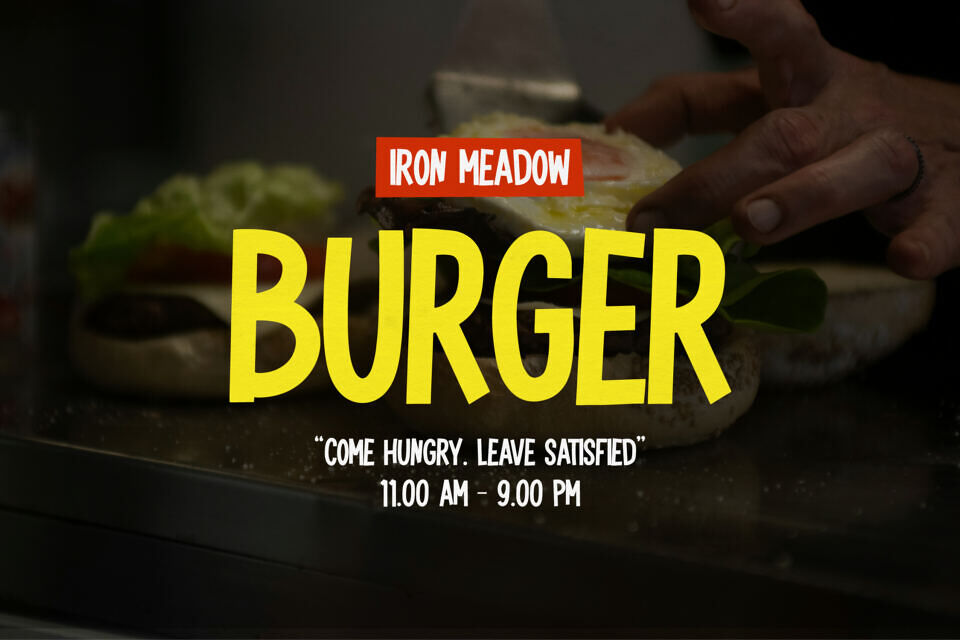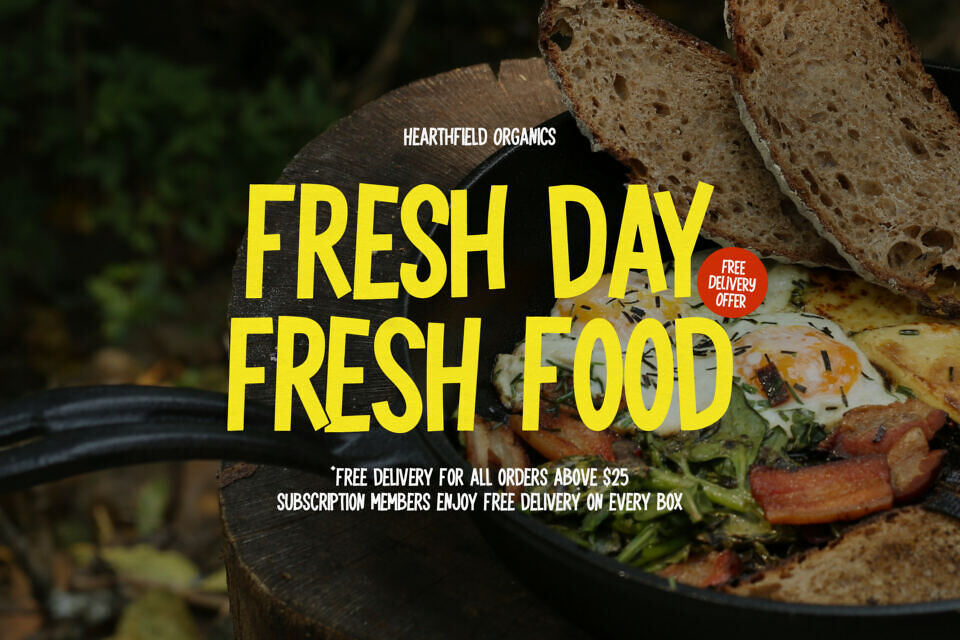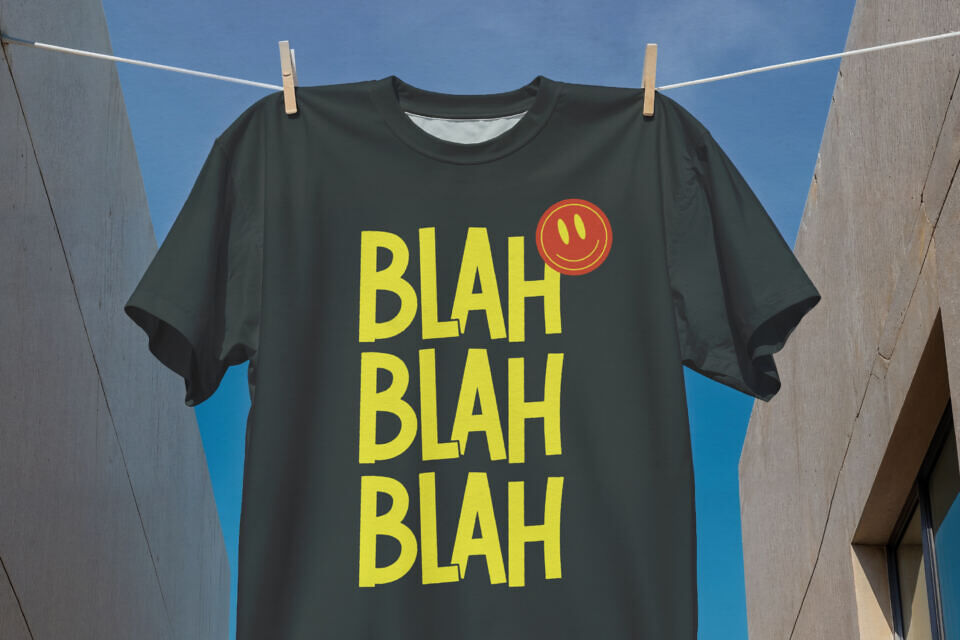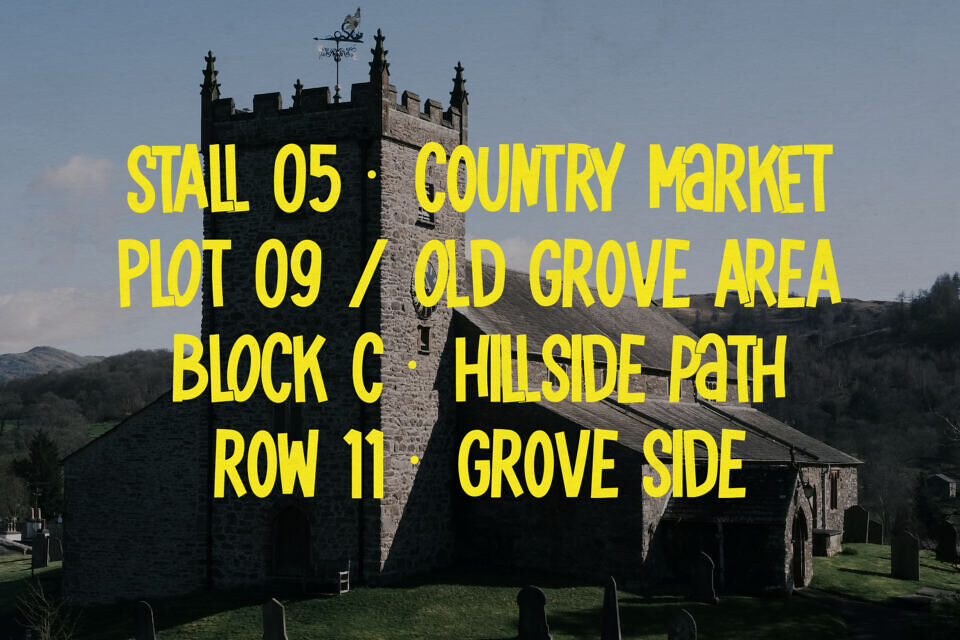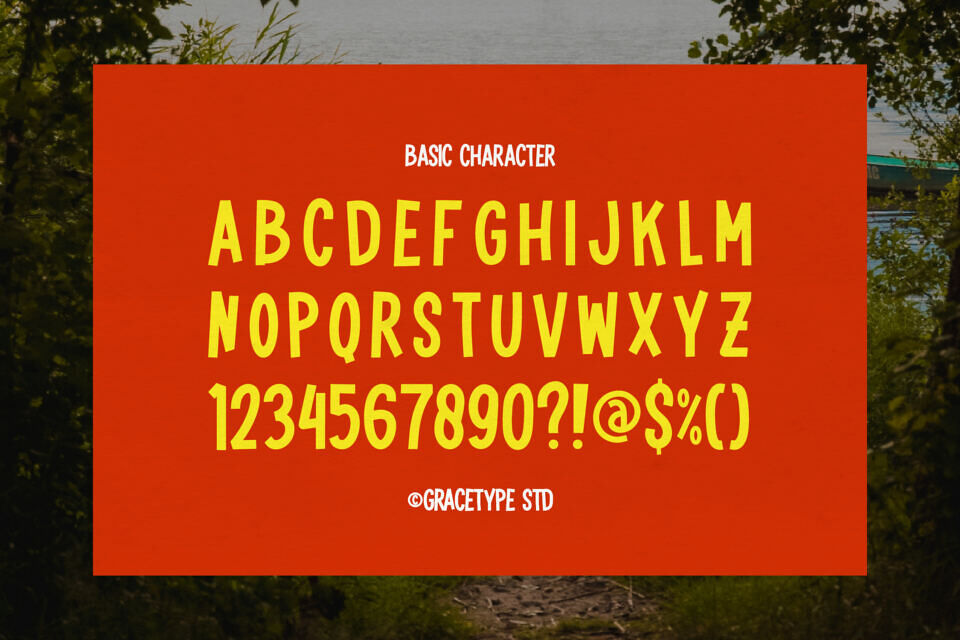
Ramveno Font
Ramveno is a dynamic and spirited all-caps display typeface designed to capture the essence of adventure and spontaneous joy. Defined by its tall, condensed silhouette and slightly irregular, hand-cut edges, this font brings a vibrant “new style” energy to any layout.
Its sturdy construction and rhythmic verticality make it an exceptional choice for outdoor lifestyle branding, travel posters, craft beverage labels, and engaging social media headlines.